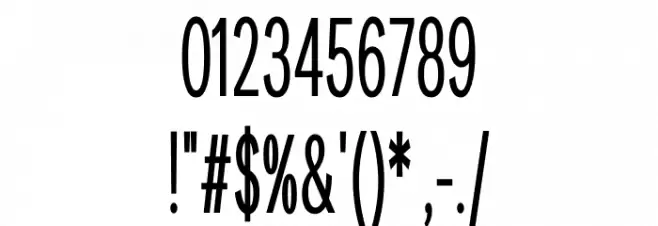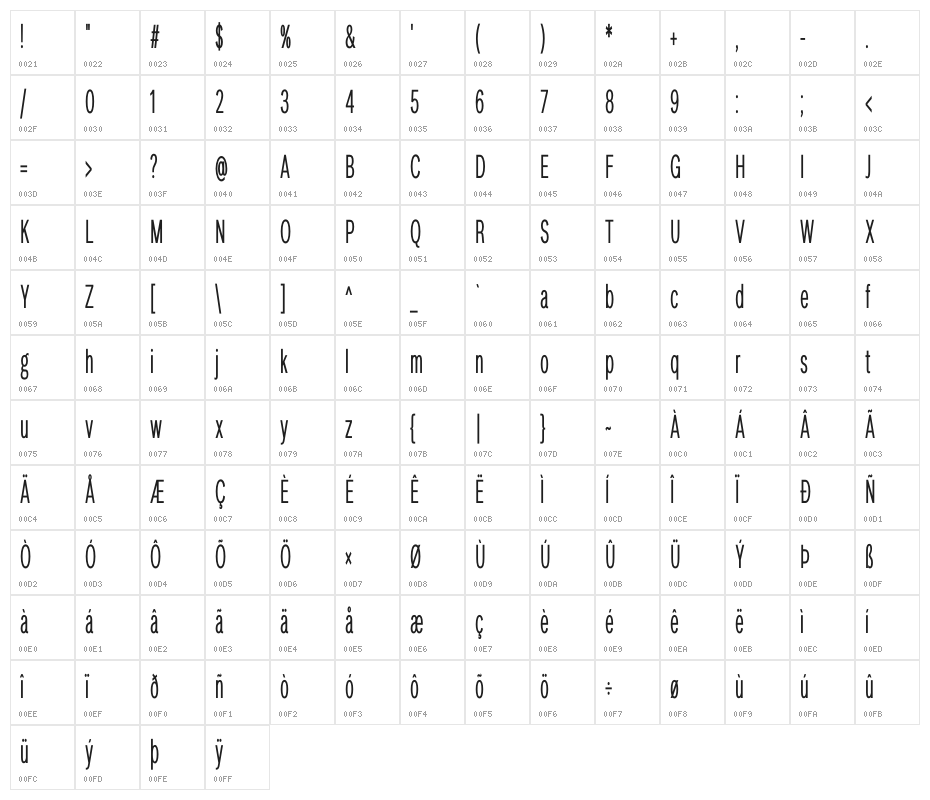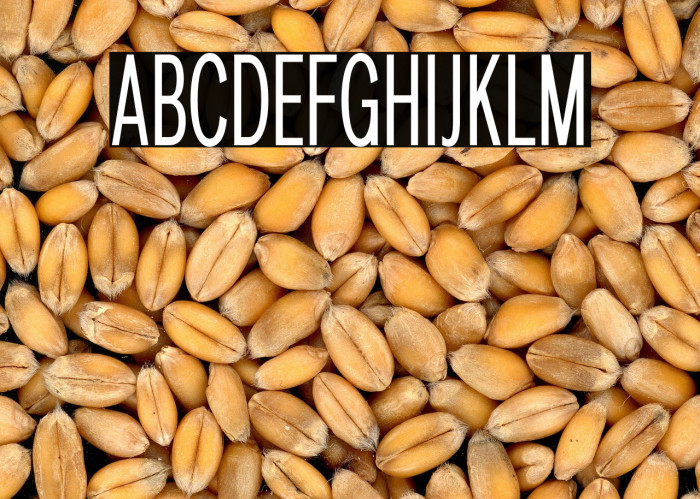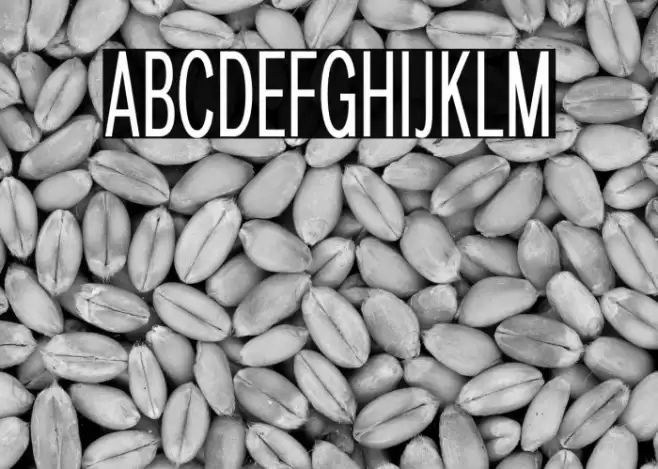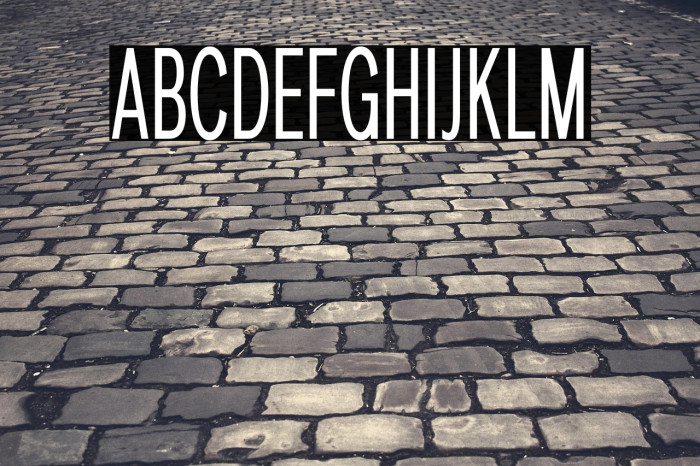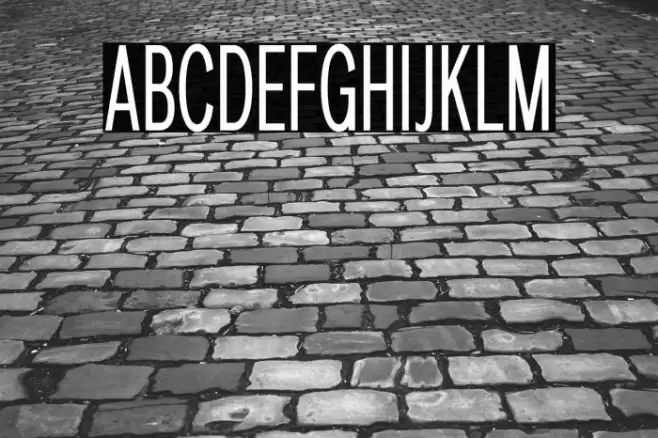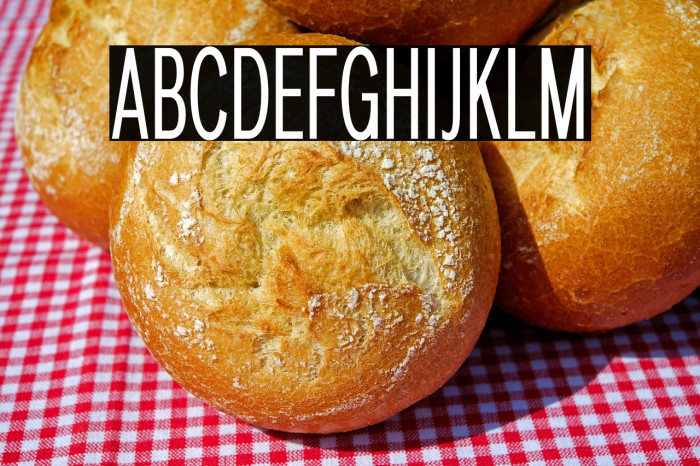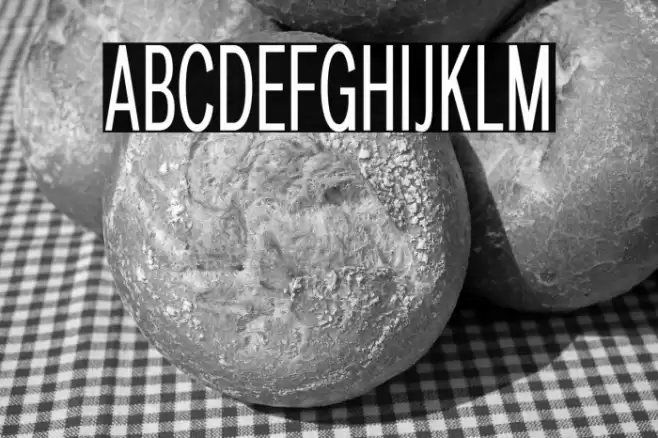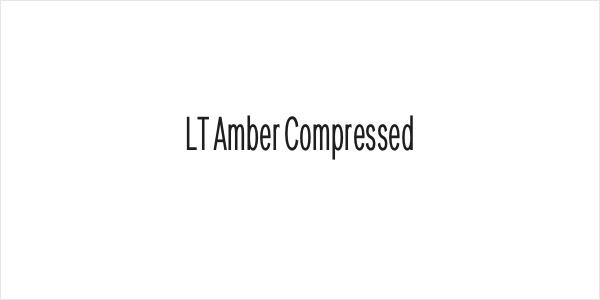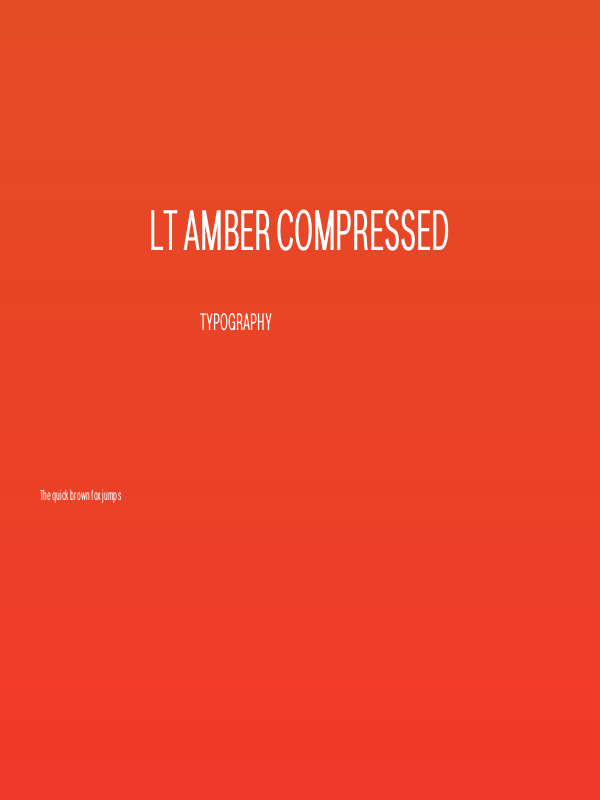
LT Amber Compressed Font
LT Amber Compressed Description
This font features a clean and modern sans-serif style with a compressed width, making it ideal for space-saving applications. The characters are uniformly structured with a consistent stroke width, providing a sleek and professional appearance. The uppercase and lowercase letters maintain a harmonious balance, while the numerals and special characters are clear and legible. This font's design is versatile, suitable for both digital and print media, and it excels in conveying a contemporary and efficient aesthetic.
| Proposed Projects | Ideal for branding, advertising, headlines, and any project requiring a modern and space-efficient typeface. |